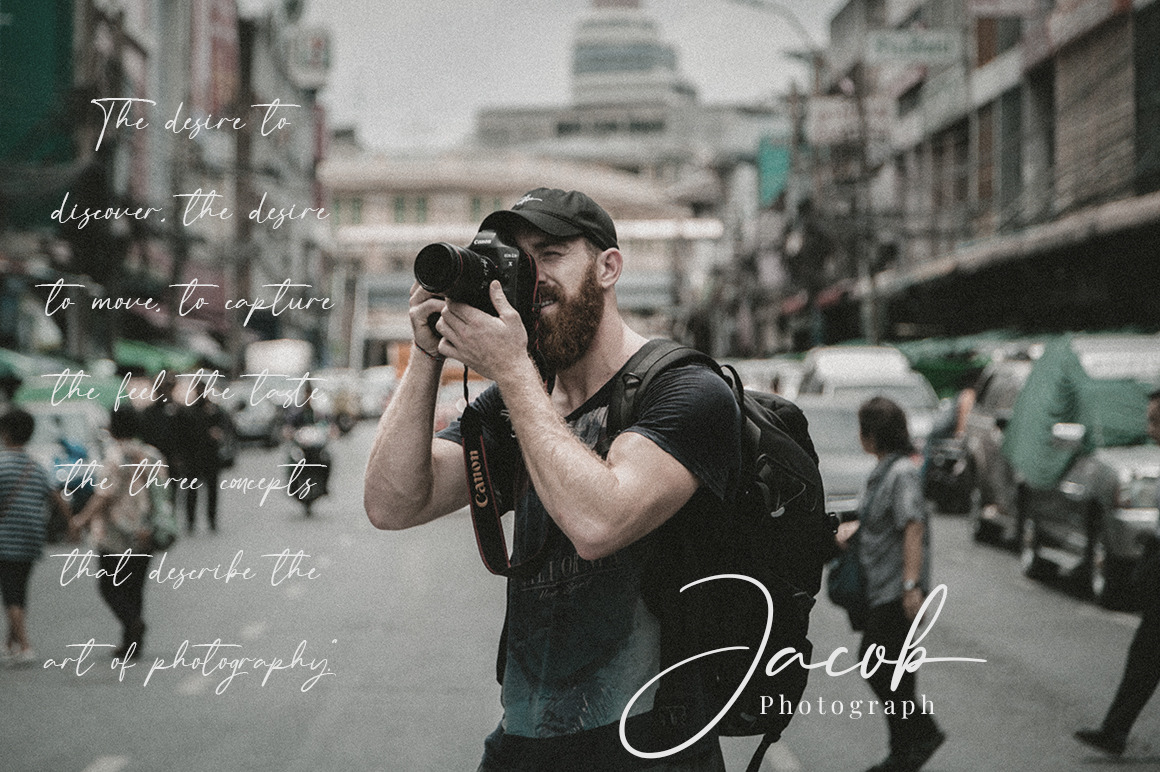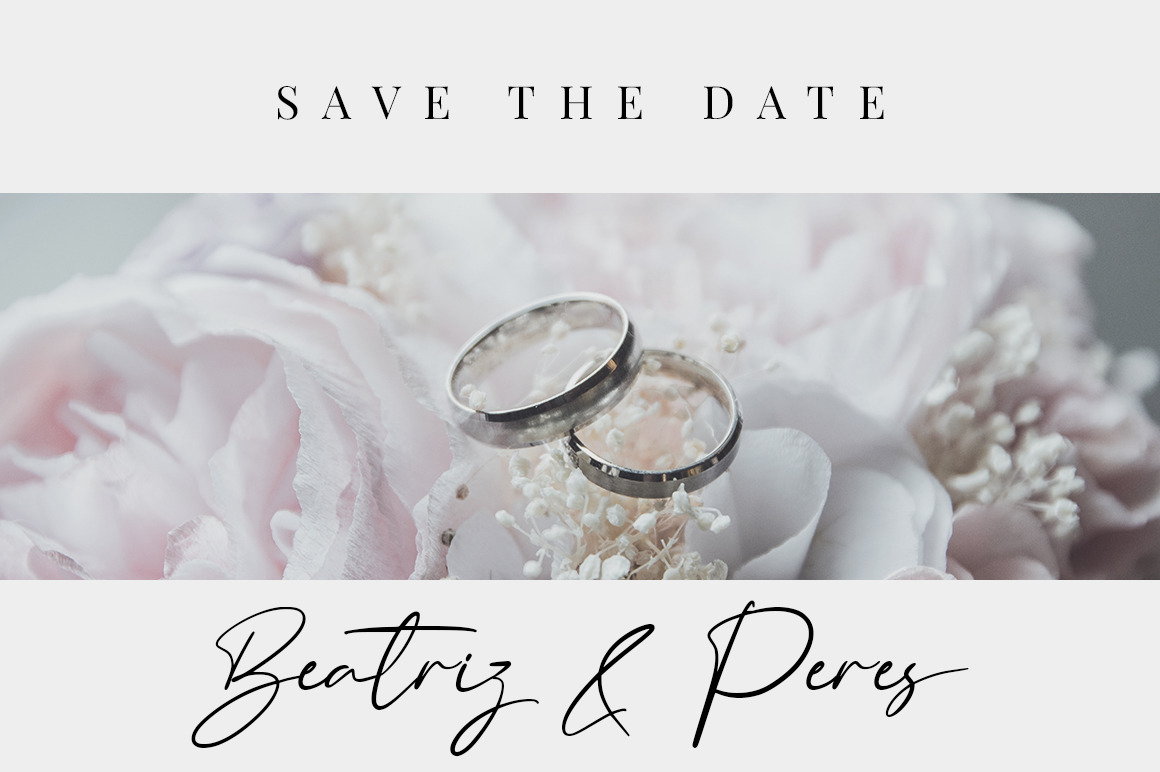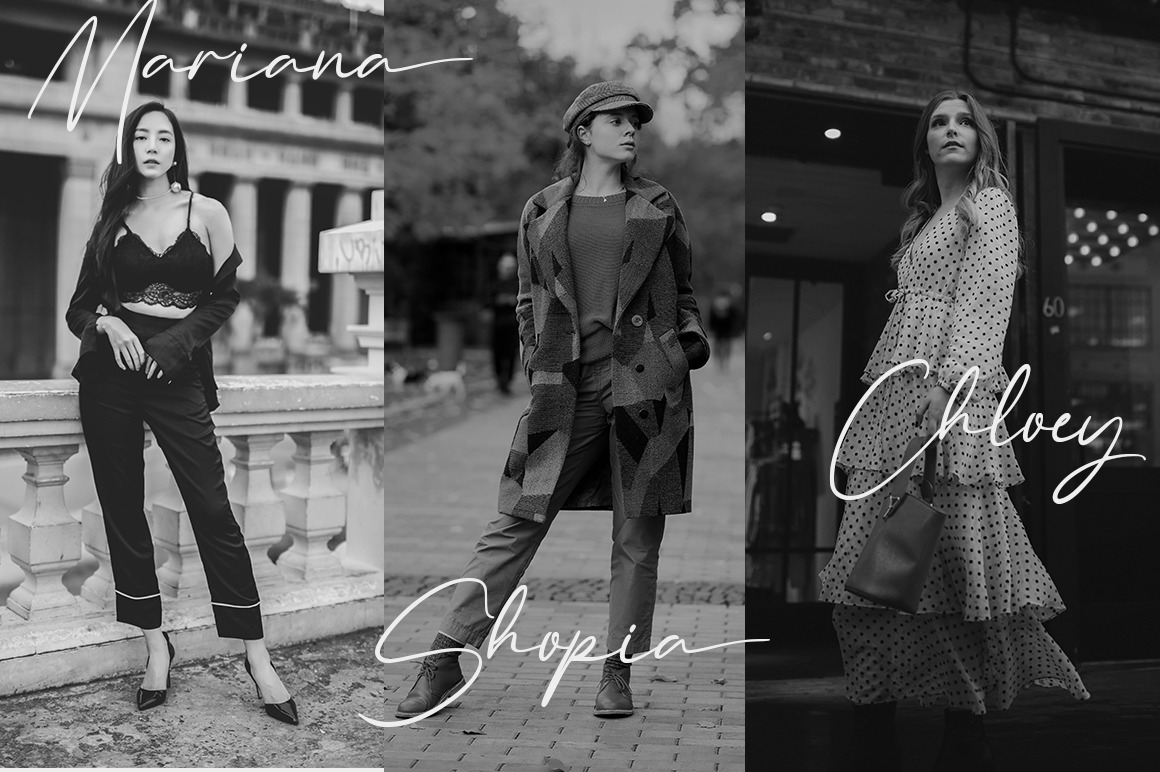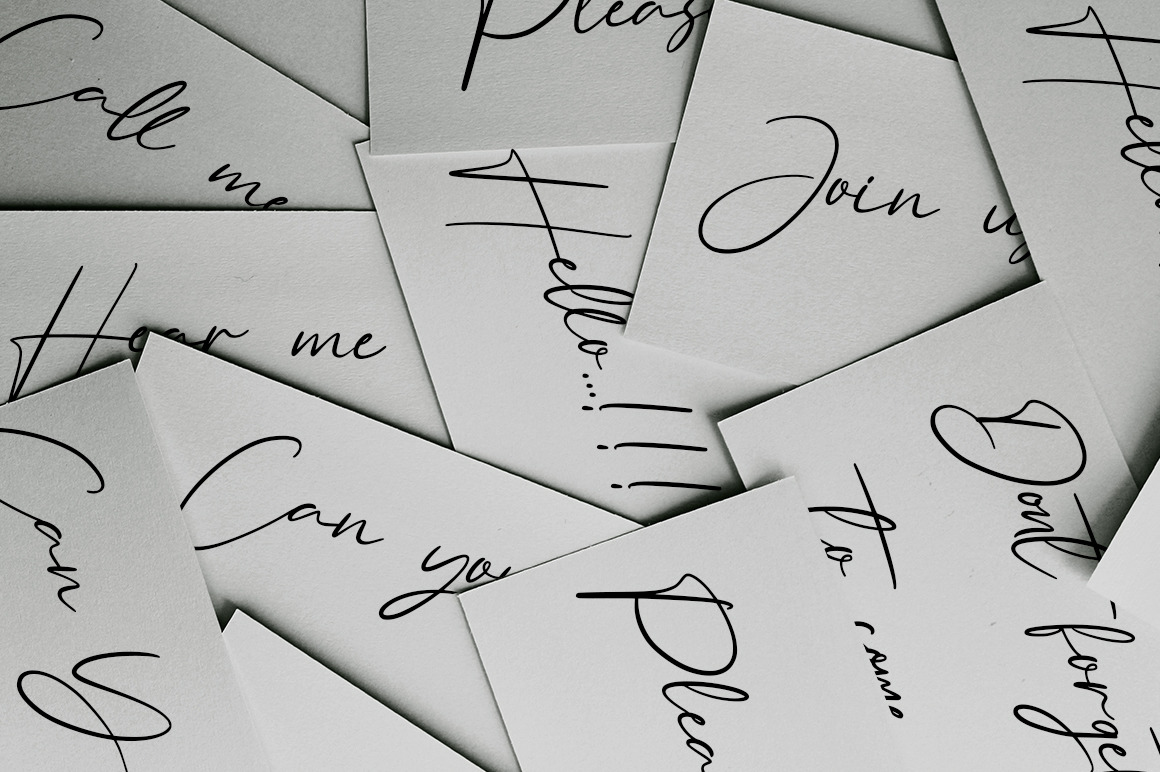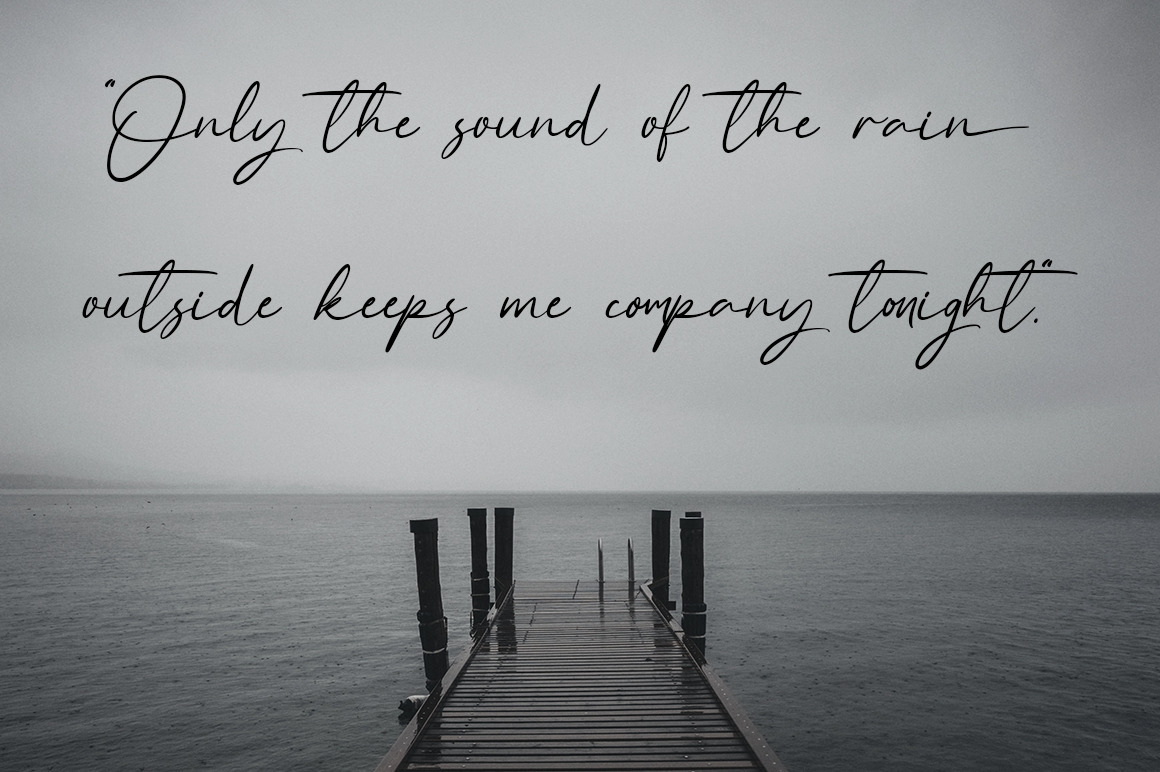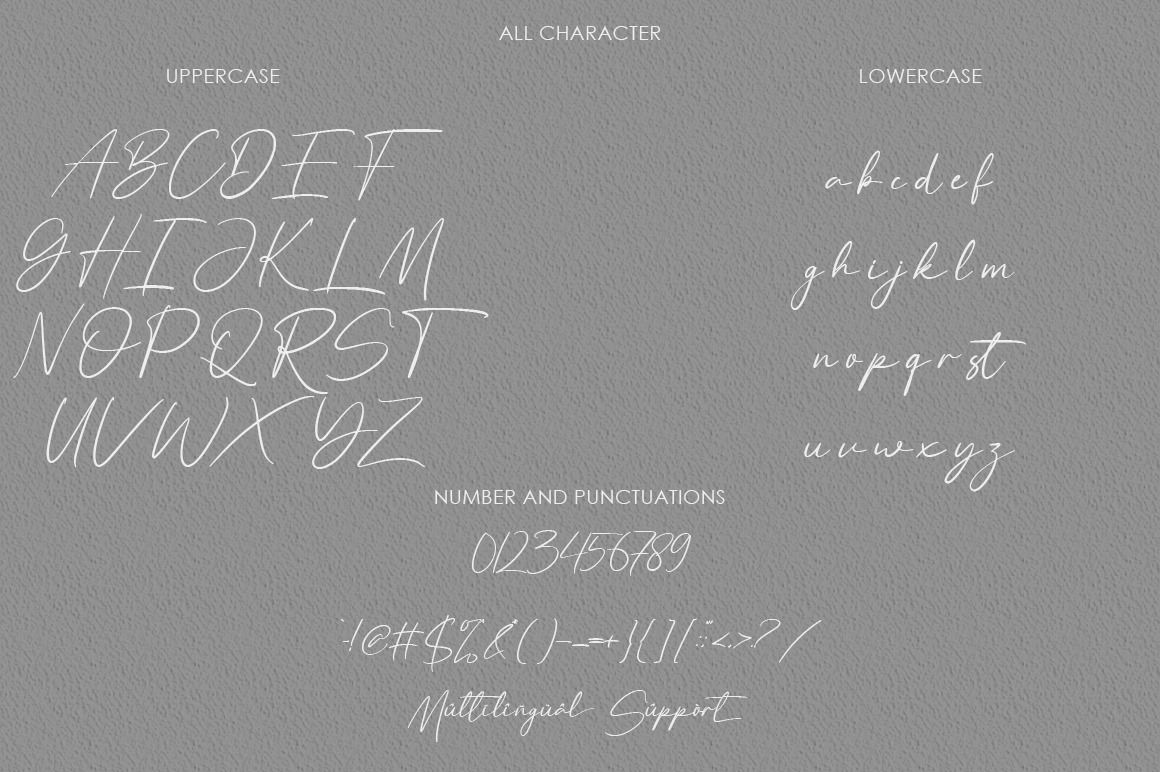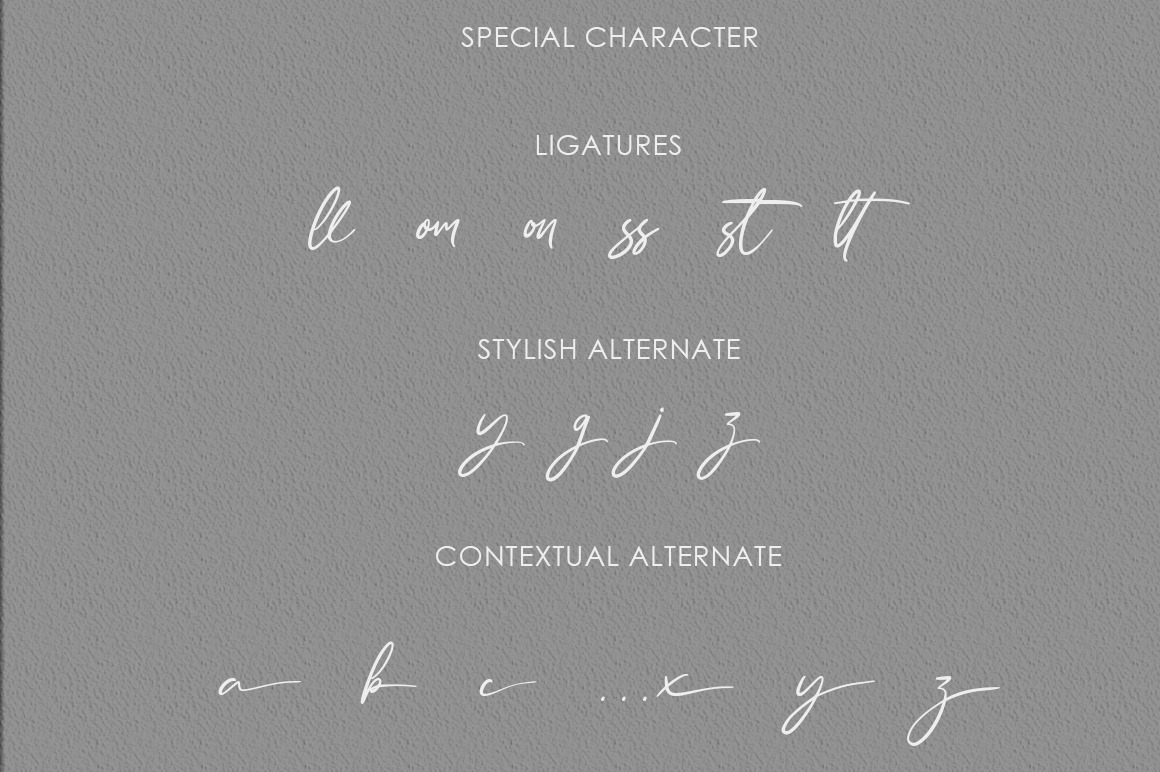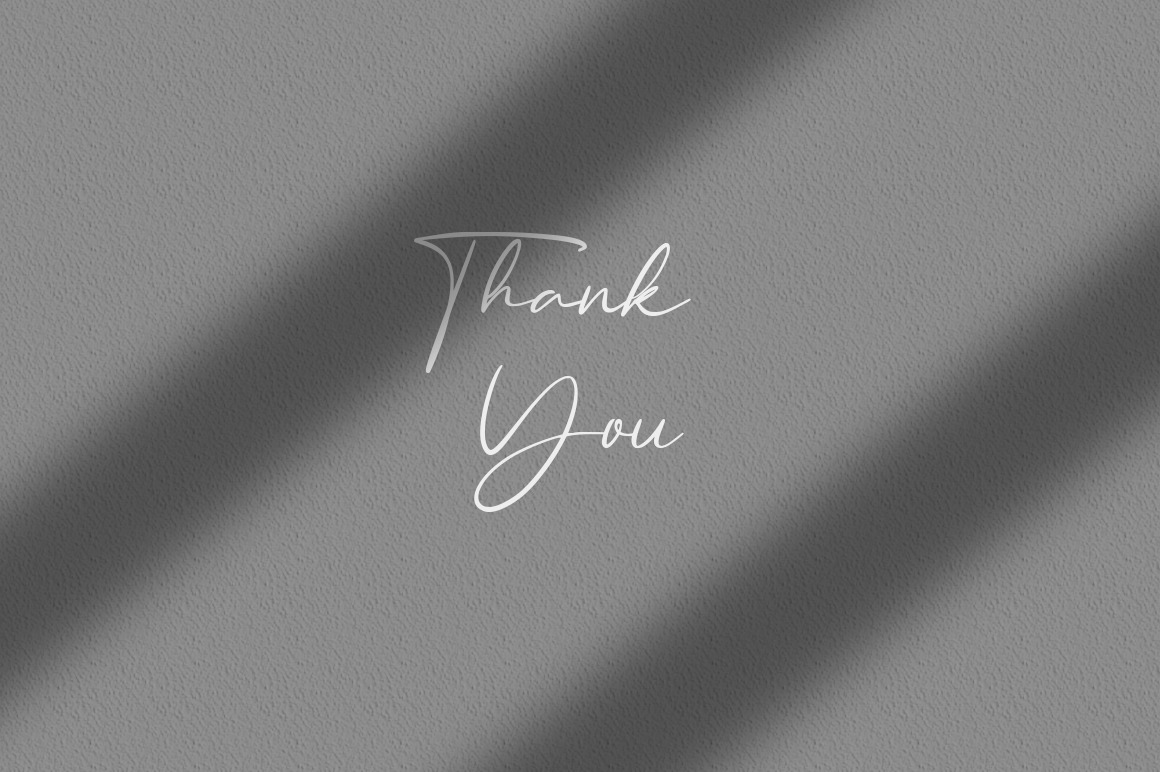
Miss Gendhis Font
Miss Gendhis - Hand Drawn Script Font
Introducing Miss Gendhis is a hand drawn script font that is so elegant and stunning with a touch of natural strokes. very suitable for purposes logo / branding projects, large header text and product packaging as well as signatures.
Miss Gendhis Features:
- Standart Character
- Ligatures
- Stylish Alternate
- Contextual Alternate
- Number & Punctuation